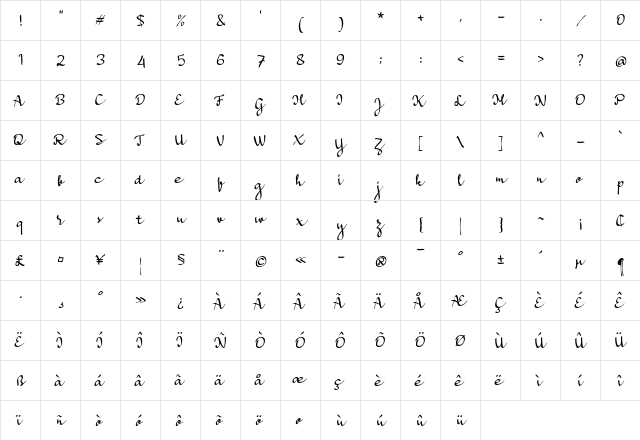
aBatorsGrowth Regular
| Designer | Wahyu Eka Prasetya |
aBatorsGrowth is a composed and adaptable typeface that performs quietly and consistently across a wide range of design contexts.